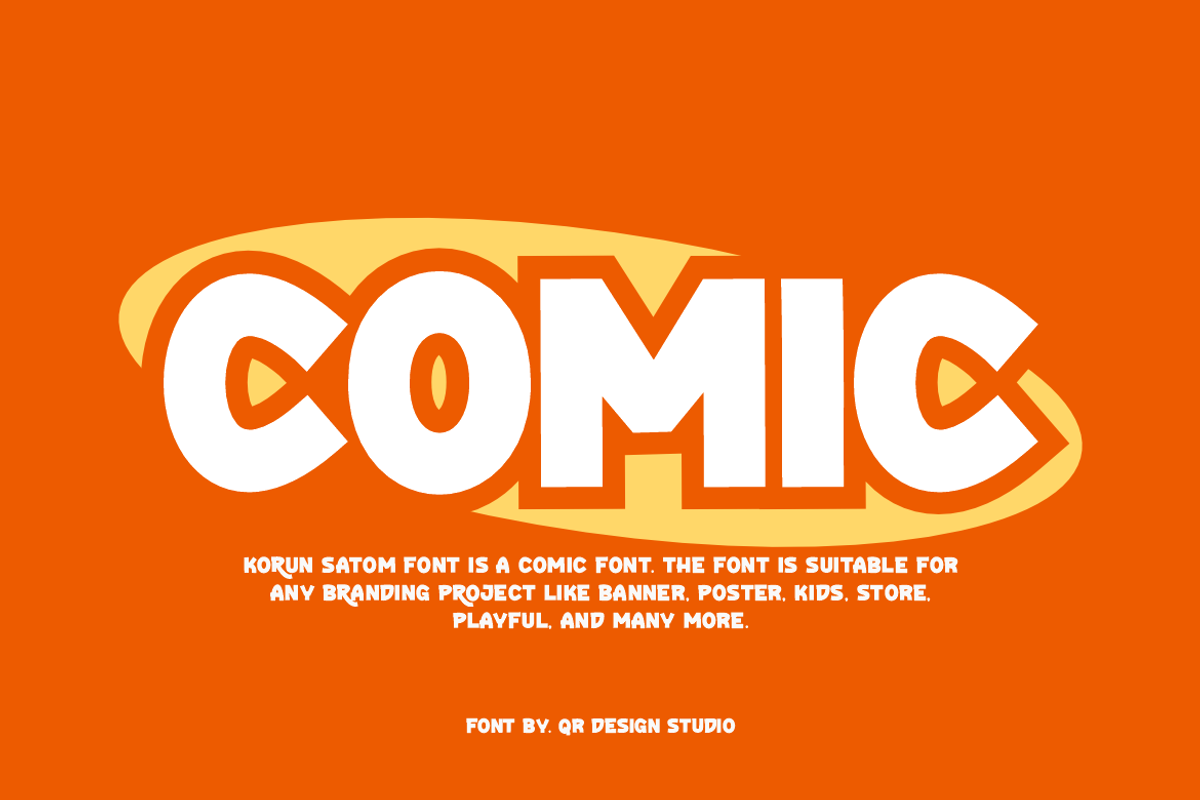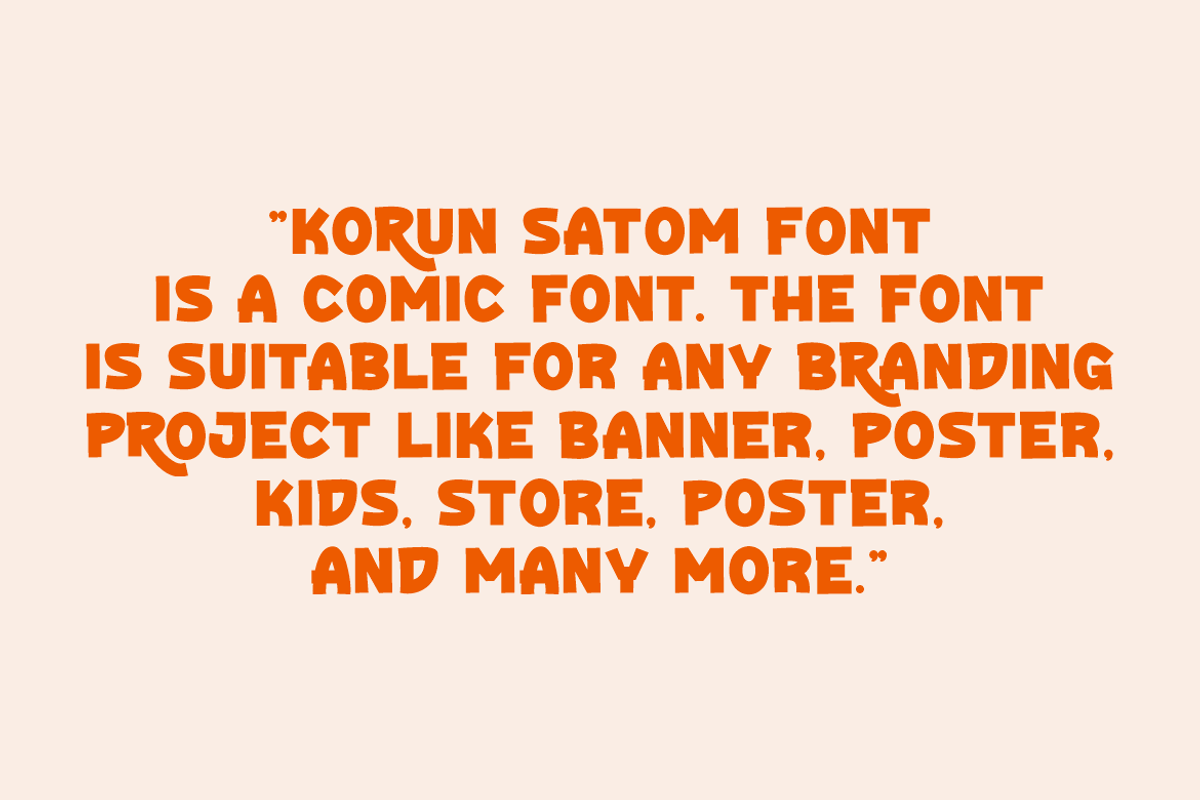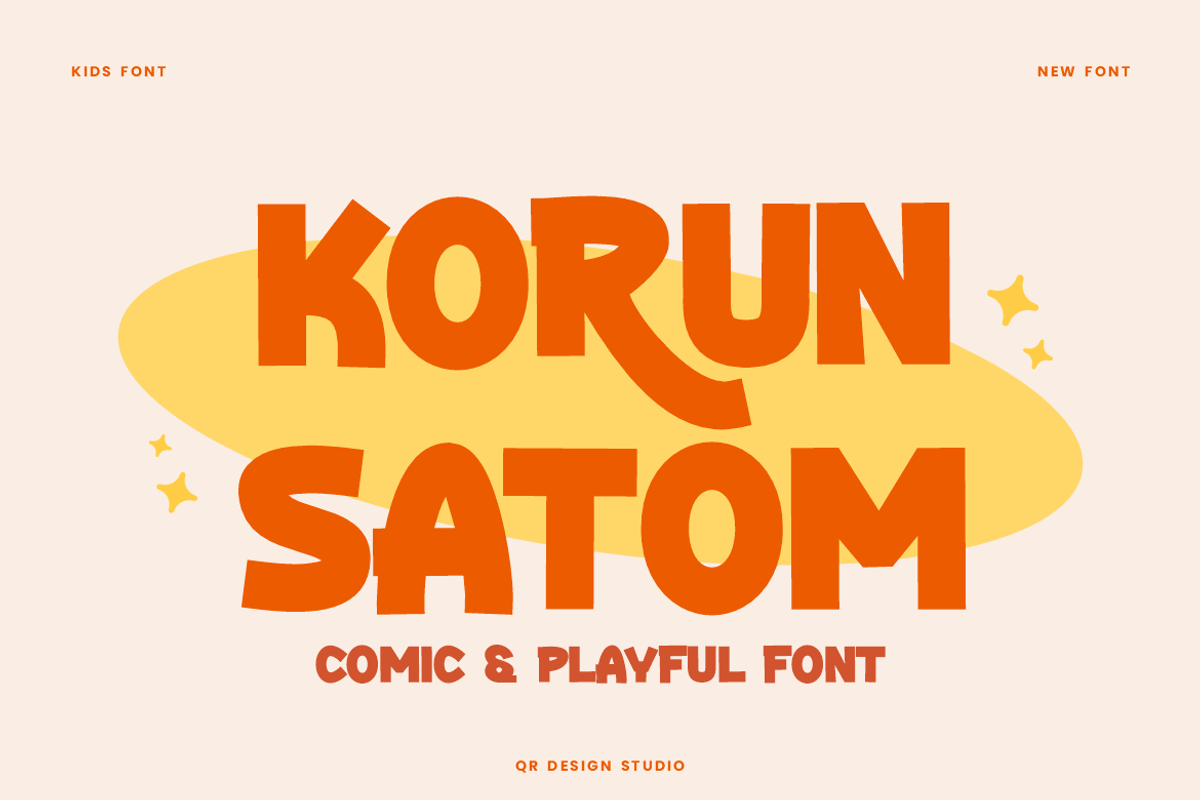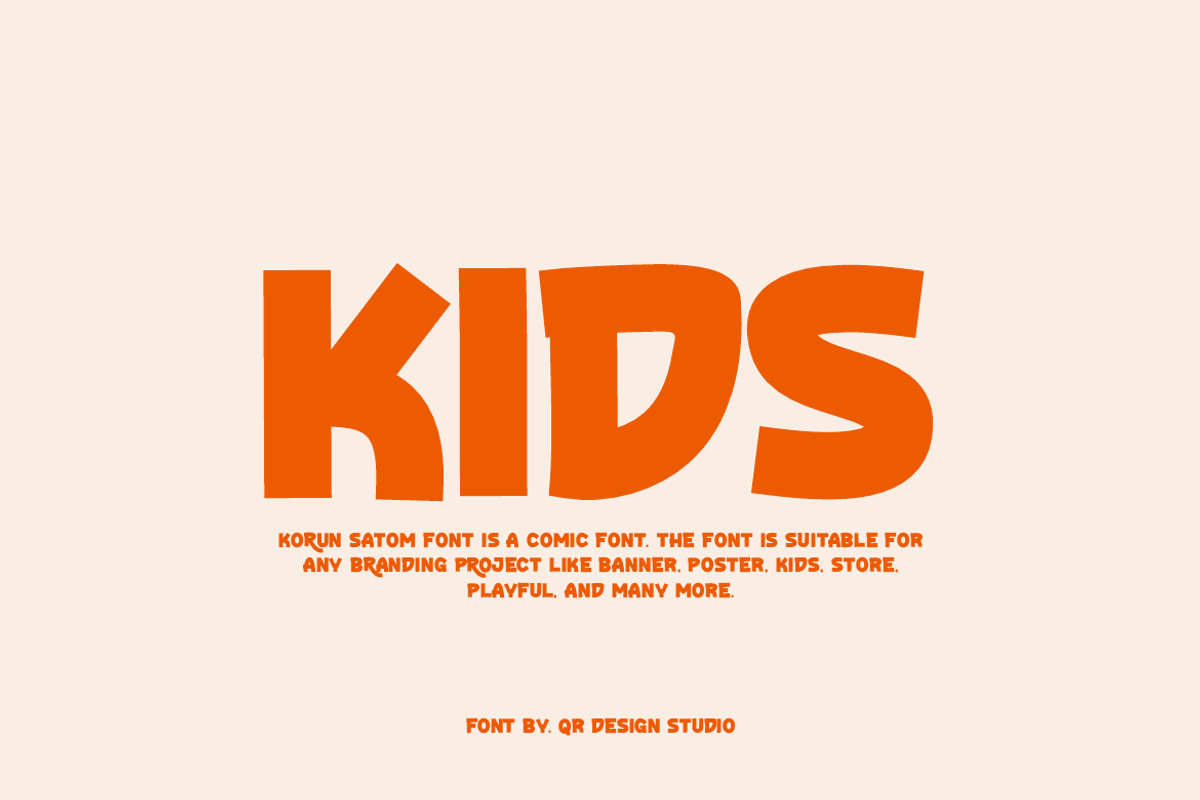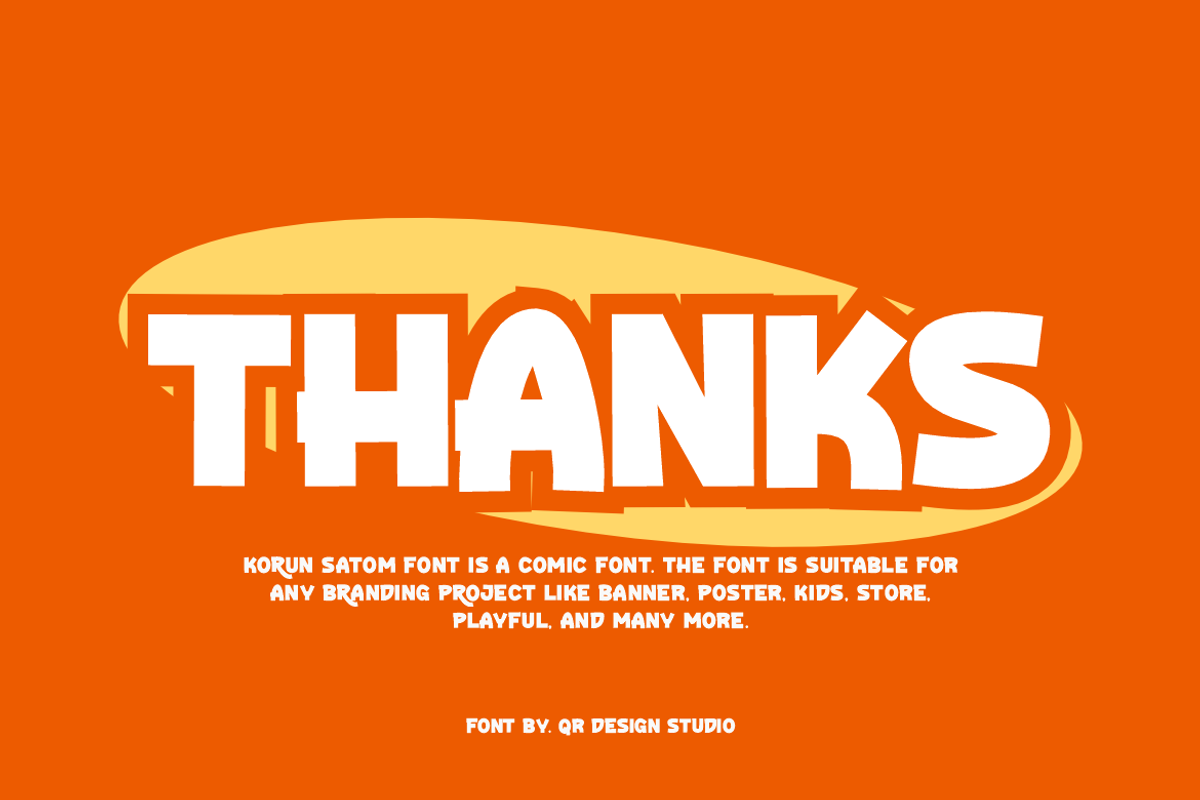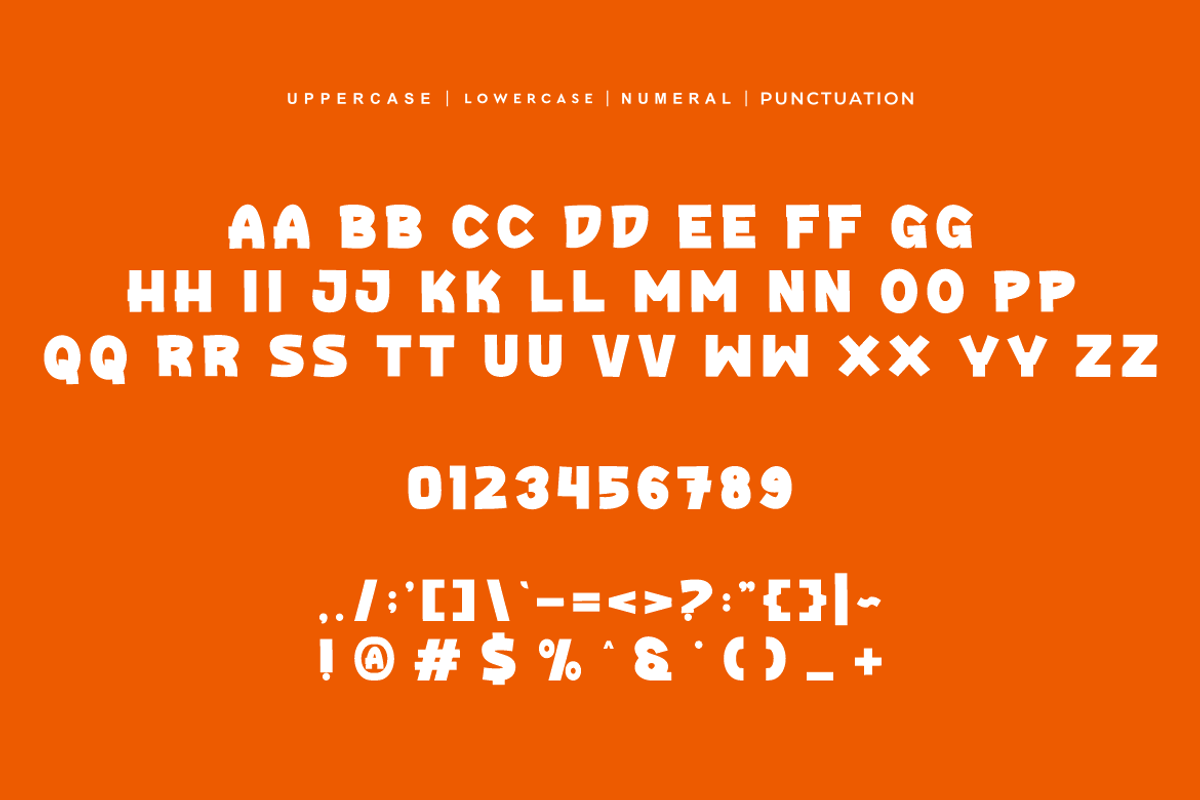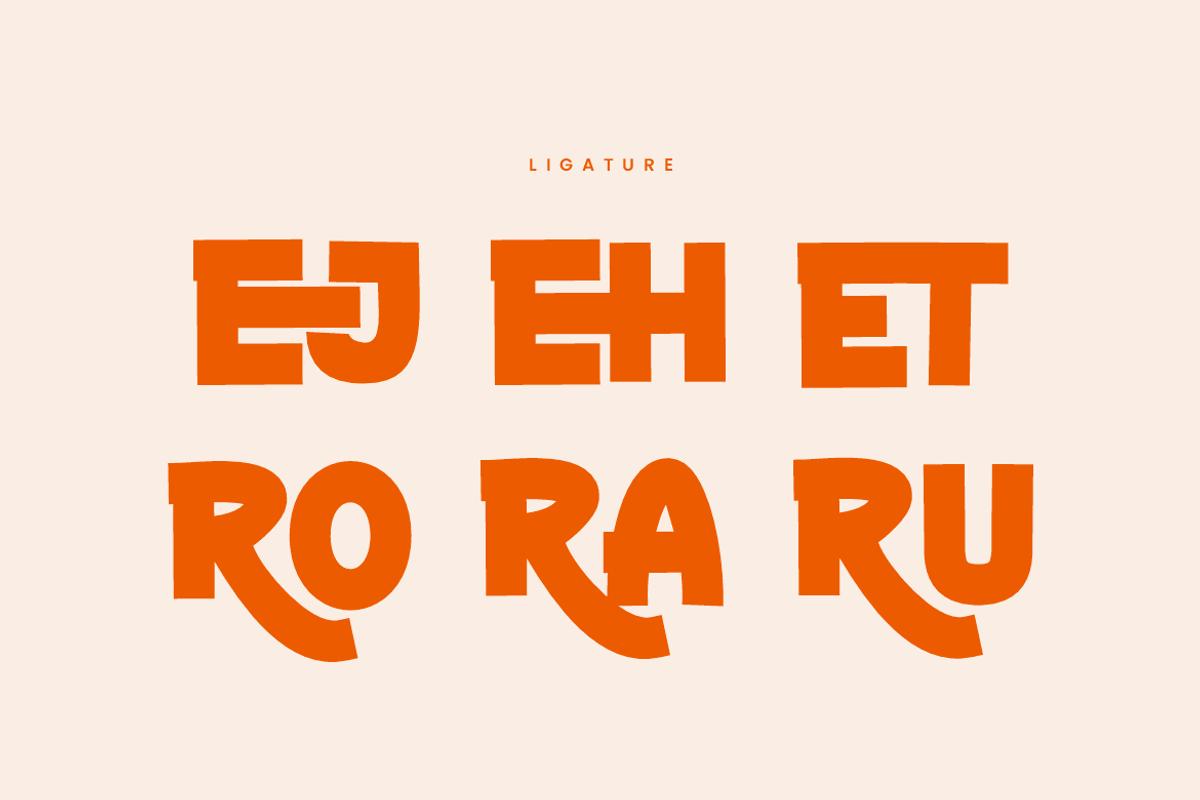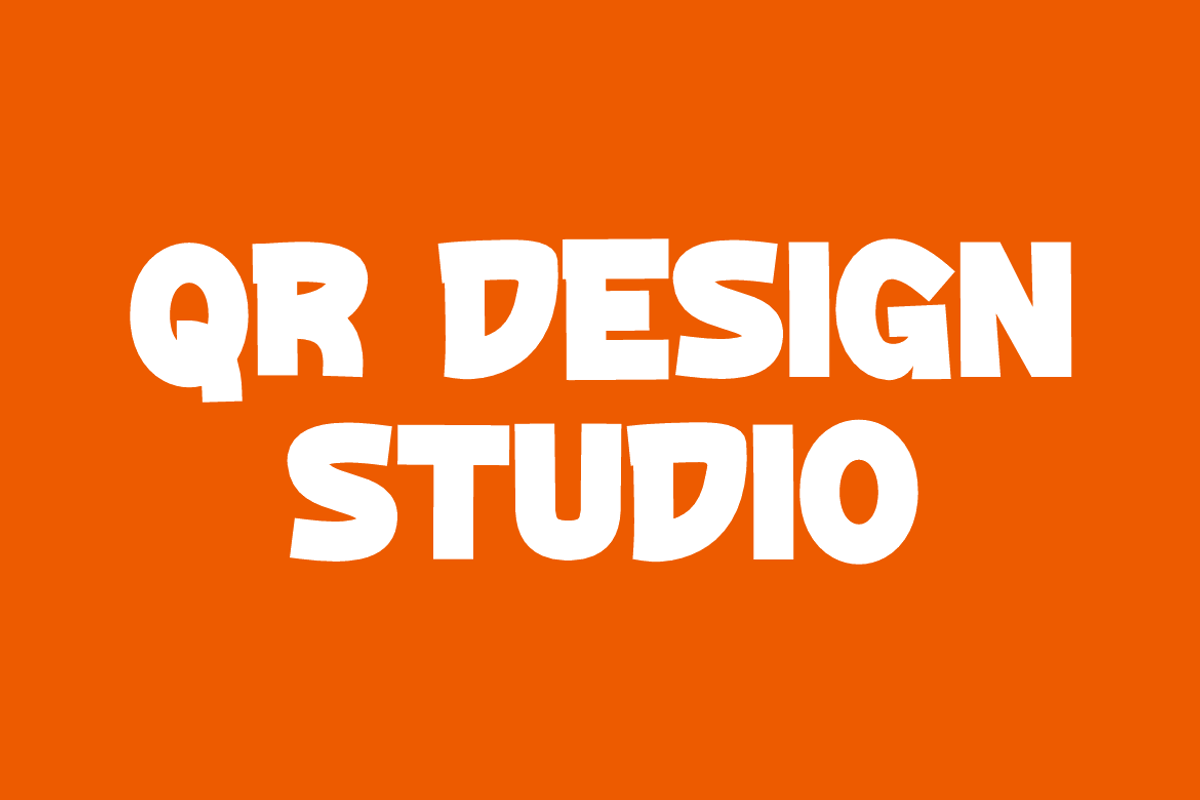
Korun Satom - Comic Font
Korun Satom Font is a comic and authentic display font. The font is suitable for any branding project like poster, logo, kids, and many more. Outstanding in a wide range of contexts.